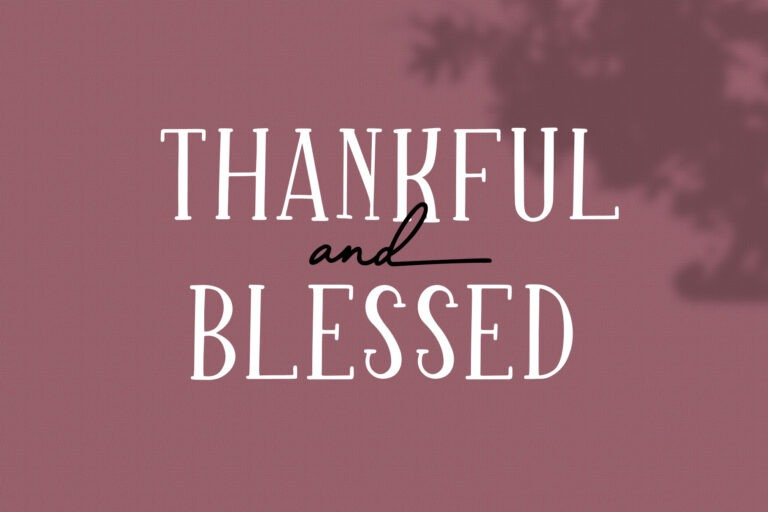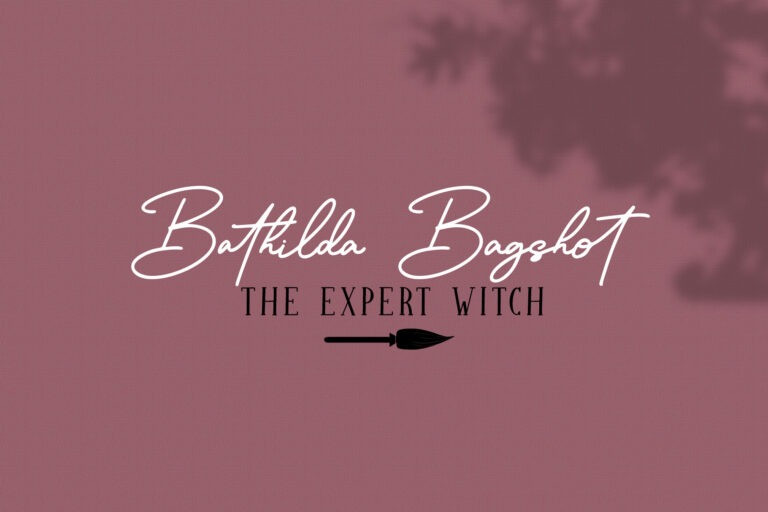
Sparkling Bright Display Font
It is a font duo, comes with a lot of alternate/ligatures that let you make a good combination design. Use them for your greeting card, promotions, business, t-shirt or merchandise products, and much more. You can use the serif or the script alone, or pair them to make some unique design!